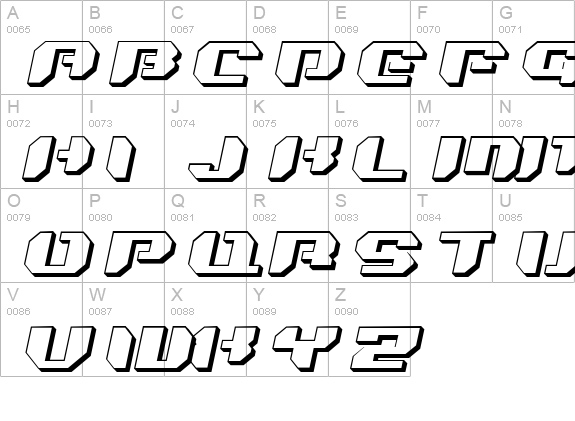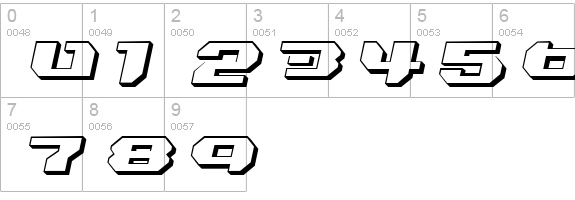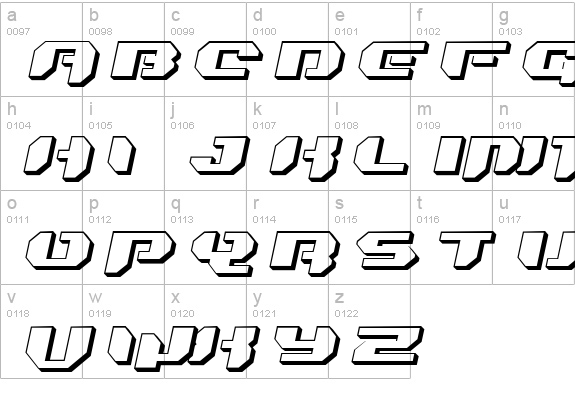
Introducing the futuristic and dynamic Bionic Kid Slanted 3D font! This innovative typeface combines sleek lines and sharp angles to create a bold and modern look that is perfect for a variety of design projects. The distinctive 3D effect adds depth and dimension to your text, making it stand out in any application. What's even more exciting is that Bionic Kid Slanted 3D font is available for free download at FontsMarket.com! This means you can easily access this cutting-edge font and use it in your designs without any cost. Whether you're working on a poster, logo, website, or any other creative project, Bionic Kid Slanted 3D font will add a futuristic touch that is sure to impress. Don't miss out on this opportunity to enhance your designs with this free and dynamic font today!